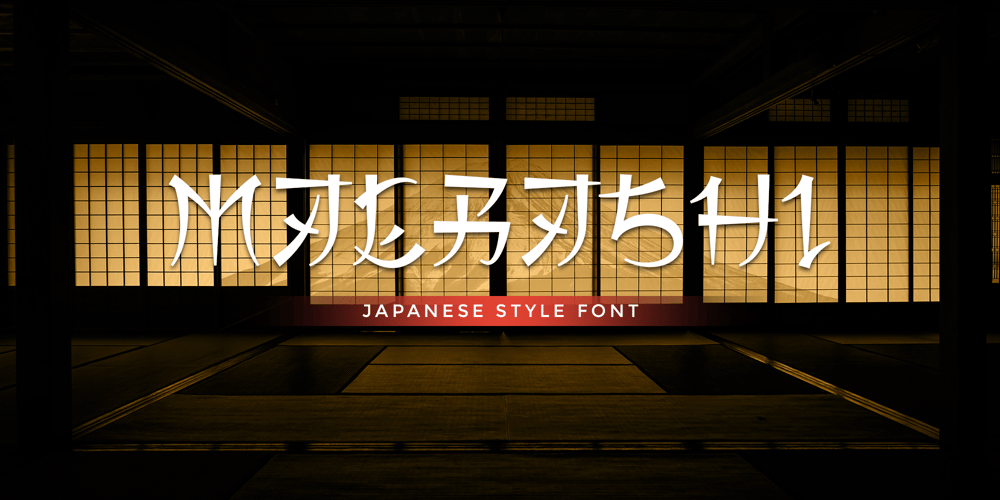
Maebashi Font Family was designed by Muhammad Khoirul Amal and published by CBRTEXT Studio. Maebashi contains 1 styles and family package options. Maebashi is a display font in Japanese style. This font comes with a Japanese feel and you can feel it every time you use this font. It’s the perfect font for multipurpose projects like logos, branding, posters, headlines, and more (especially for Asian-themed projects).